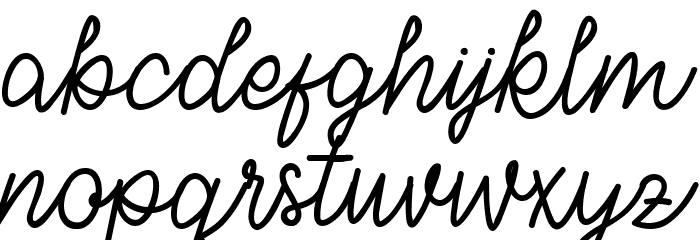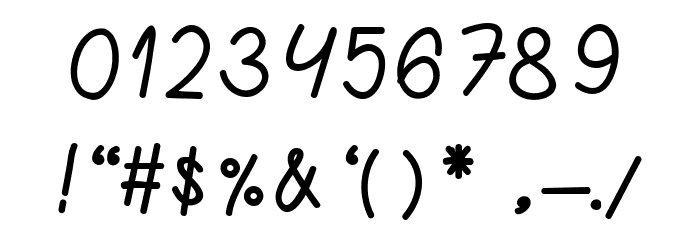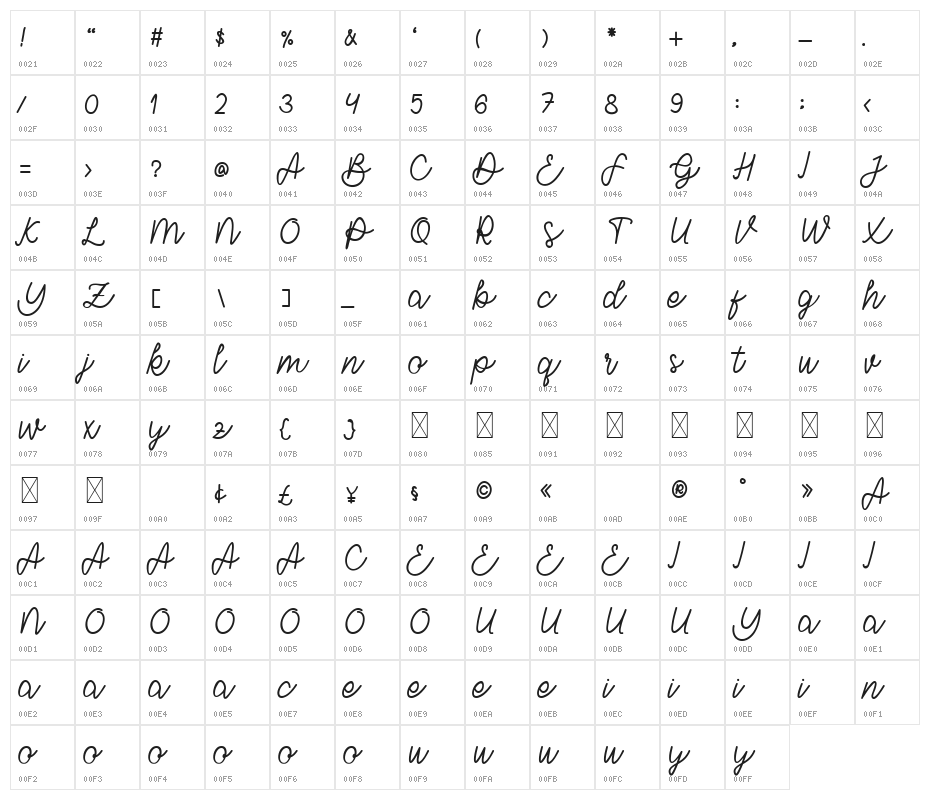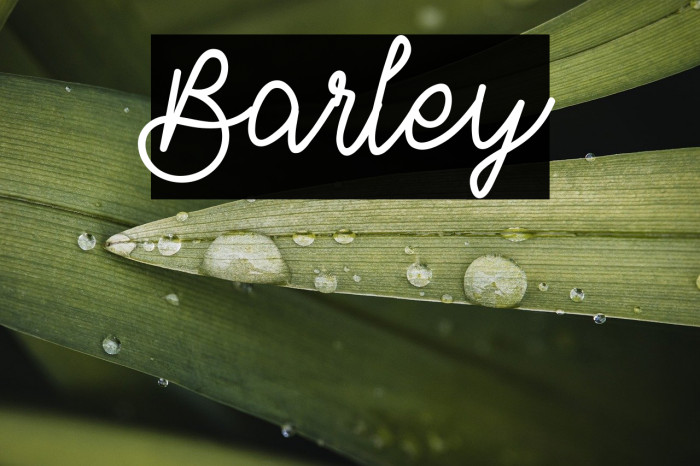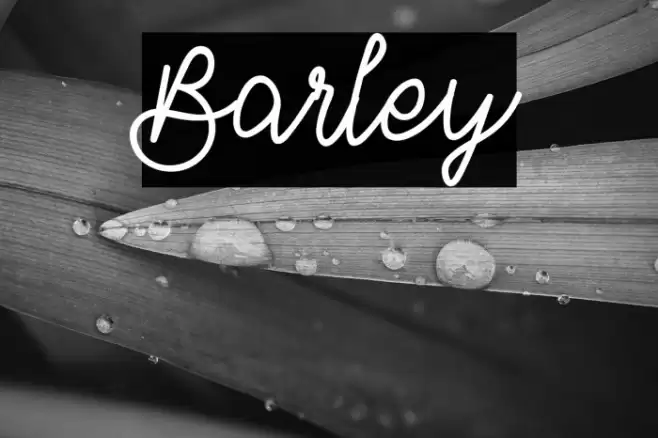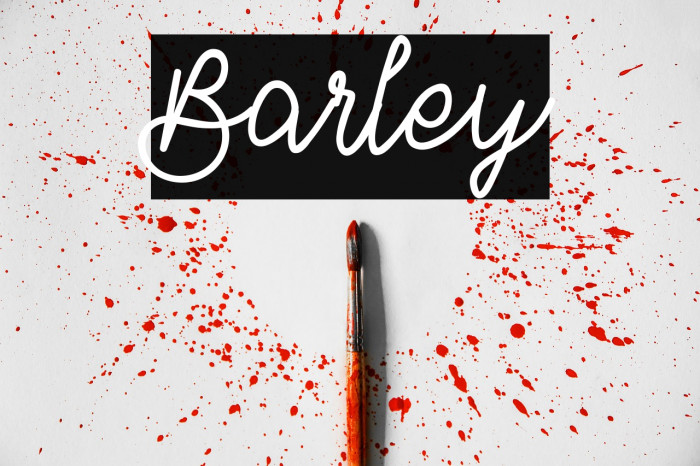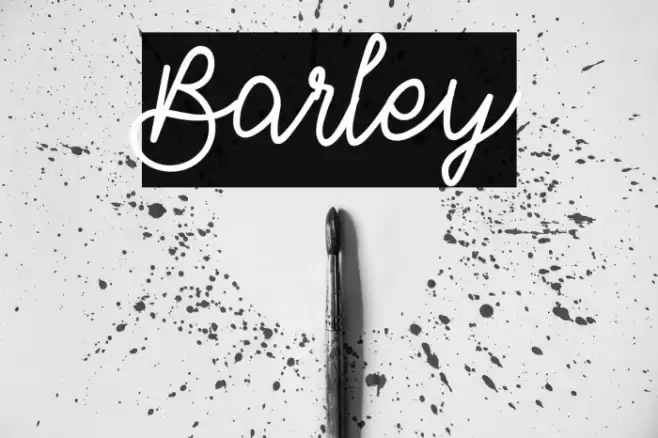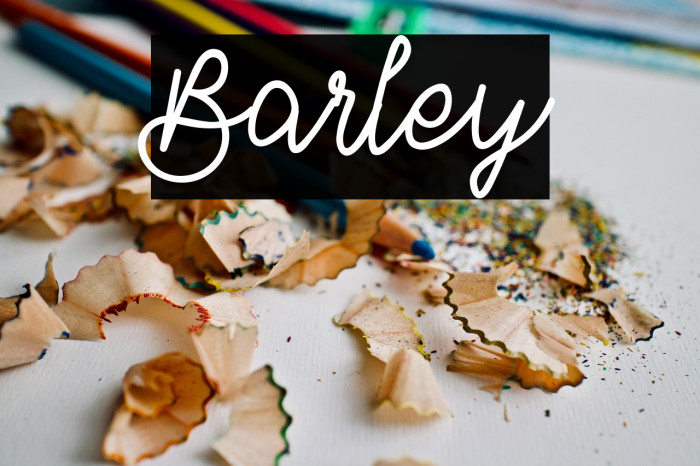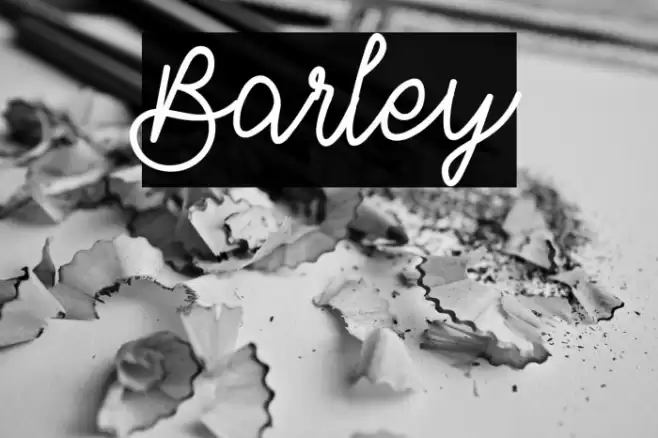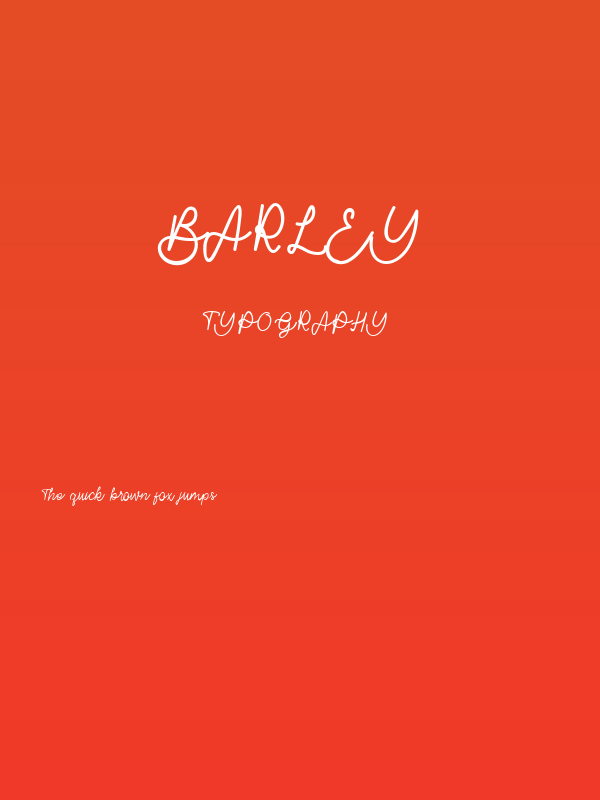
Barley Font
This font features a playful and elegant script style with a handwritten appearance. The uppercase letters are slightly more formal, maintaining a consistent slant and smooth curves, while the lowercase letters exhibit a more casual and flowing style. The numerals are clear and legible, complementing the overall design. Special characters are creatively integrated, maintaining the font's cohesive look. The strokes are consistent in thickness, providing a balanced and harmonious appearance. This font is versatile, suitable for various design projects that require a personal and approachable touch.
A playful and elegant script font with a handwritten style.
- Proposed Projects: Ideal for wedding invitations, greeting cards, branding, and social media graphics.
- Use Case: Logos, Invitations, Social Media Graphics